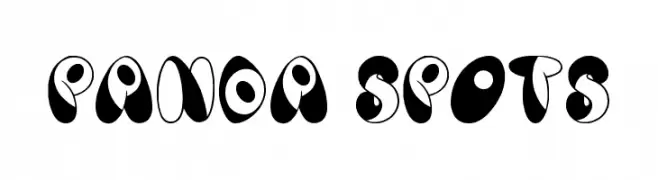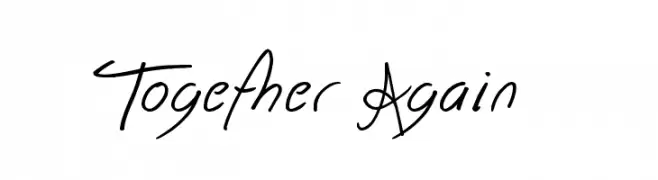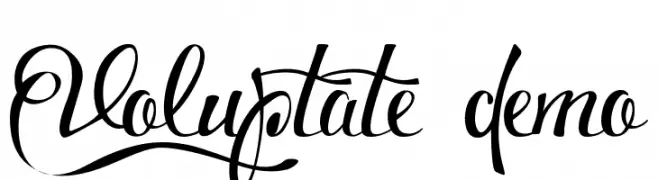
A playful, energetic handwritten font with a casual, spontaneous style.
A playful, casual handwritten font with uneven strokes and a spontaneous feel.
A whimsical doodle font with playful, hand-drawn symbols and icons.
A playful, casual handwritten font with dynamic, flowing strokes.
A playful, casual handwritten font with dynamic, irregular strokes.
A playful, handwritten font with a casual and informal style.
A playful, casual handwritten font with a natural, personal touch.
A playful, handwritten font with a whimsical and romantic touch.
A playful, casual handwritten font with dynamic strokes.
A playful, doodle-inspired font with a whimsical, handwritten style.
A casual, handwritten font with playful and irregular strokes.
A playful, handwritten font with bold, dynamic strokes and a casual style.
A playful, casual handwritten font with dynamic strokes.
A playful, casual handwritten font with dynamic, irregular strokes.
A casual, handwritten font with a playful and informal style.
A playful handwritten font with bold, irregular strokes and a whimsical style.
A playful, handwritten font with bold, irregular strokes and a casual vibe.
A bold, handwritten font with a playful and informal style.
A playful, hand-drawn font with bold strokes and whimsical curves.
An elegant and fluid script font with graceful lines and intricate flourishes.
A bold serif font with strong, well-defined characters and a slightly condensed structure.
An elegant italic serif font with a classic yet modern appeal.
A bold, italic font with a modern yet classic style, ideal for headlines.
A bold slab serif font with strong lines and a classic style.
A whimsical, handwritten font with playful, irregular characters.
A bold, geometric font with a futuristic and modern design.
A bold, geometric font with a futuristic and modern style.
A lively, expressive handwritten font with flowing cursive letterforms.
A bold, expressive handwritten font with dynamic strokes.
A bold, distressed font with a grunge aesthetic and high contrast.
A playful, handwritten font with thin, irregular strokes and a casual feel.